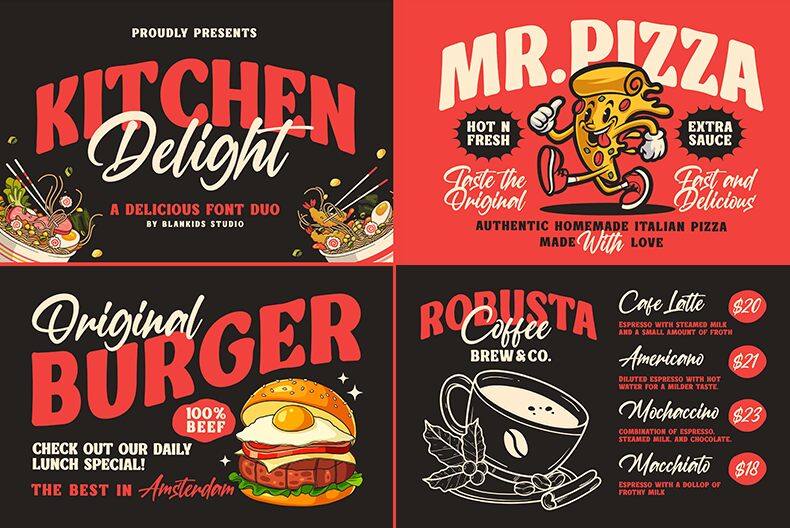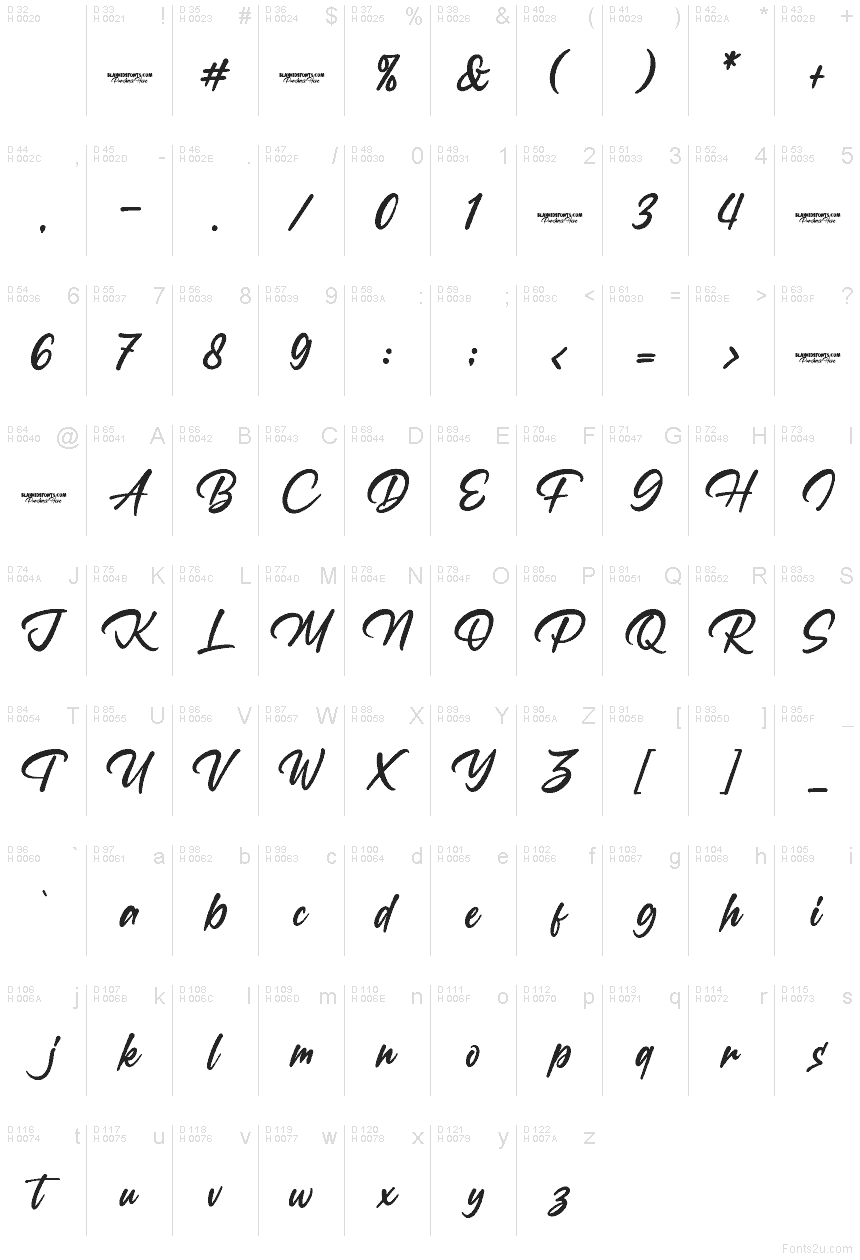
Kitchen Delight Script
Kitchen Delight Script font by Blankids is a free handwritten typeface. Its quick, inky strokes and lively slant feel like a fresh note dashed on a recipe card—smooth connections, roomy curves, and just enough texture to read as human without turning messy. Letters sweep forward with an appetizing energy, giving titles a warm, made-by-hand aroma that still holds together cleanly at medium to large sizes.
Using Kitchen Delight Script, you can lift café logos, bakery packaging, recipe cards, menu headings, cooking-channel thumbnails, farmers’ market signage, and jar labels. The rhythm is bouncy but consistent, so words stack nicely and stay legible across bright photos or kraft-paper backgrounds. For balance, pair this free font with a simple geometric sans for body copy, and give the script a little extra size to let those buttery curves breathe.